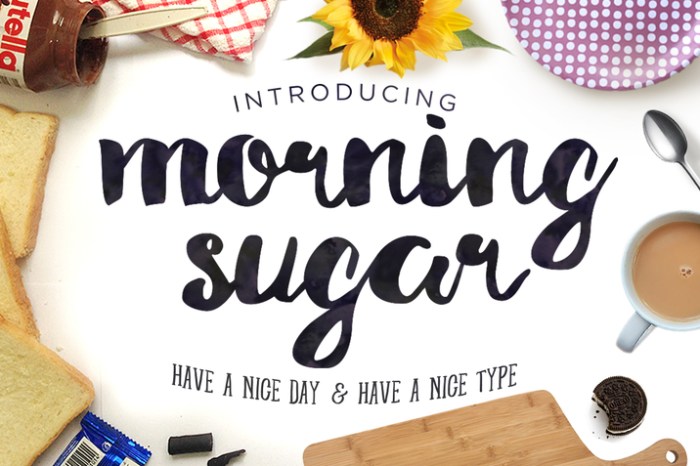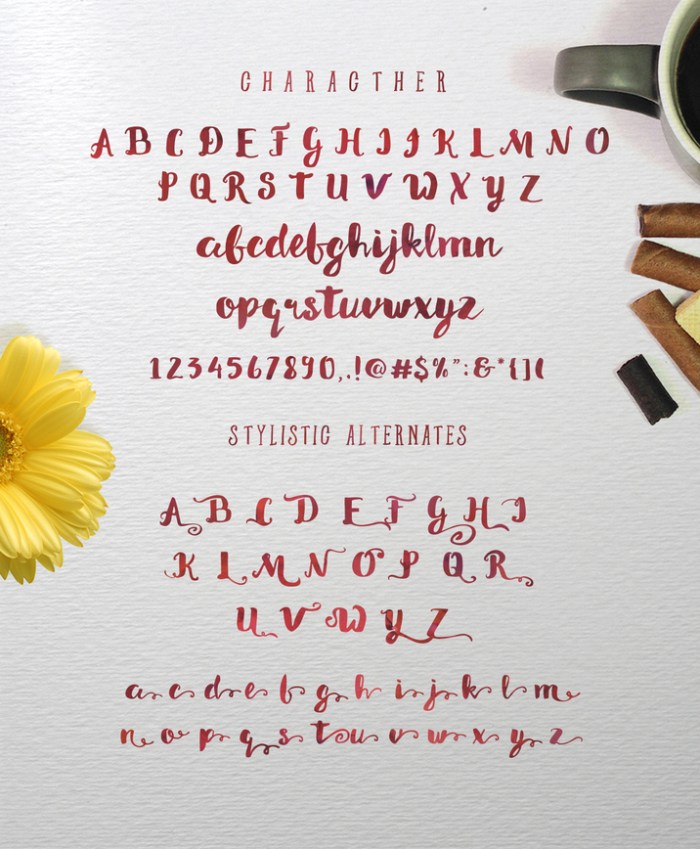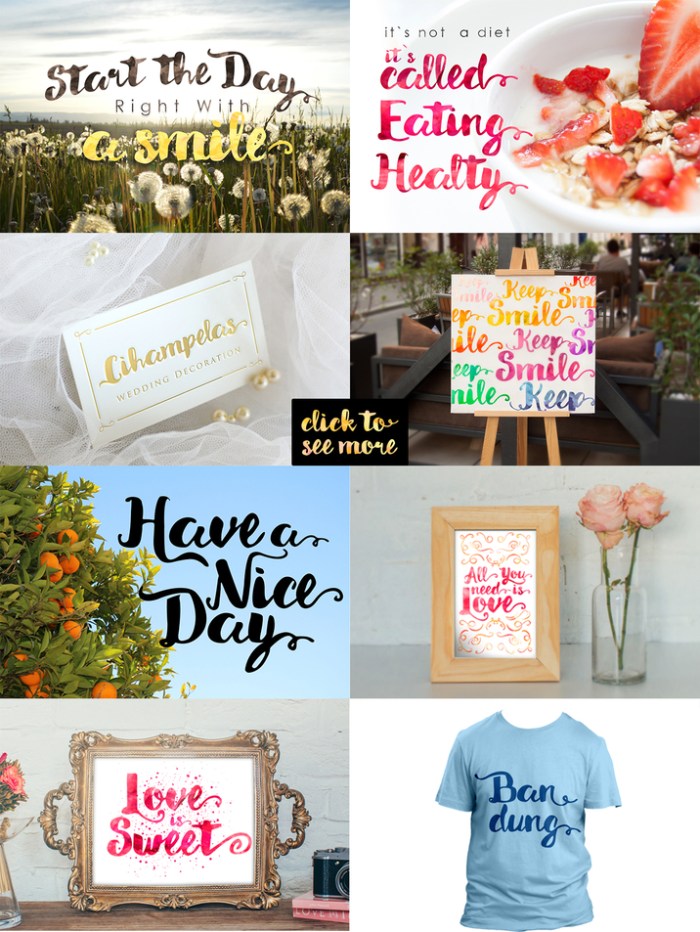
Name : Morning Sugar Typeface + Extra ! Files : AI, EPS File Size : 1.78 MB Vector : Yes Hello !! Morning Sugar typeface is a beautiful brush lettered font with Morning spirit ! , This typeface be equipped OpenType features with Stylistic Alternates, Contextual Alternates and swashes in some characters that allows you to mix and match pairs of letters to fit your design. To access the alternat glyphs, you need a program that supports OpenType features such as Adobe Illustrator CS , Adobe Indesign & CorelDraw X6-X7 :) WHAT'S INCLUDED? • Morning Sugar.otf • Extra ( Vector Ai Cs3 , EPS Cs3 & PSD) Features • Uppercase • Lowercase • Numerals & Punctuations (OpenType Standard) • Accents (Multilingual characters) • Stylistic Alternates (as an ender in almost every words) Looks excelent on just about anything! Take a look at the product images to see how Morning Sugar can be used in various projects : wedding invitation, posters, scrapbook, greetingcard, letterhead, book cover and more! Have a nice day :) Thank You !! Link for more information: https://creativemarket.com/Jiw/248359-Morning-Sugar-Typeface-Extra-!